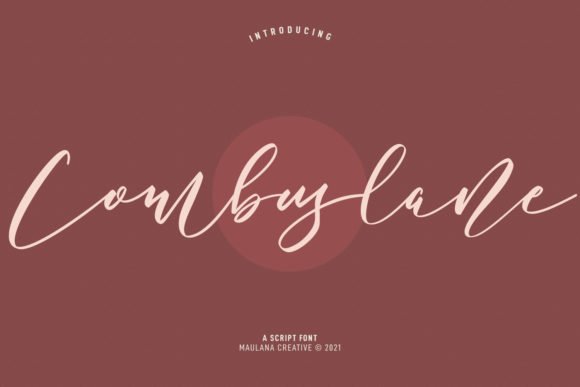
Discover the Elegance of Combuslane Script Font
Have you ever been brainstorming a new project, and suddenly, a spark of creativity hits you? You envision a beautiful, handwritten logo or a stunning title that screams luxury and sophistication. That’s exactly the moment when the right font can make all the difference.
Enter Combuslane Script Font, a masterfully designed handwritten font that exudes classy calligraphic influences while feeling refreshingly contemporary. This luxurious font is perfect for designers who want to elevate their projects to the next level. With Combuslane Script Font, you can create stunning visual elements that convey elegance and refinement. Whether you’re working on a high-end branding project or a bespoke invitation, this font is sure to become your new favorite.
As a designer, you know the importance of selecting the right font to convey your message. Combuslane Script Font is a valuable addition to your toolkit, offering a unique blend of classic and modern styles that’s sure to impress.
Combuslane Script Font Key Features
- Unique Characteristics: Includes hand-drawn, cursive script with a modern twist and a wide range of ligatures and swashes
Combuslane Script Font Review
Overall, I think Combuslane Script is a beautiful and elegant font. ✨ It’s perfect for projects that need a touch of sophistication and whimsy. I love how the letters are connected and flowing, it gives the text a sense of movement and energy.
Here are some things that work well in this font:
- ✨ Elegant and connected letterforms
- ✨ Suitable for projects that need a touch of whimsy and sophistication
- ✨ Works well for titles, headings, and short paragraphs
- ⚠️ May not be the best choice for large blocks of text, as it can be difficult to read
- ⚠️ Can be a bit too ornate for some projects, which may detract from the message
Overall, I think Combuslane Script is a great addition to any designer’s toolbox. While it has its limitations, it’s perfect for projects that need a touch of elegance and sophistication. Just be sure to use it sparingly and in the right context.
Combuslane Script Font is ideal for creating elegant and sophisticated designs. Use it for:
– Invitations and event announcements
– Branding and logo design
– Editorial and publishing projects
For the best results, use Combuslane Script Font in conjunction with other elegant fonts, such as serif or script fonts. Experiment with different font sizes, colors, and arrangements to achieve a unique and captivating design.
Alternatives to Combuslane Script Font
Great Vibes Font is a beautiful, elegant script font that is perfect for creating a warm and inviting atmosphere. It is ideal for use in wedding invitations, greeting cards, and other special occasions. Great Vibes Font is a great alternative to Combuslane Script Font as it has a similar feel and style, but with a more refined and polished look.
Carolyna Pro Font is a modern and sophisticated script font that is perfect for creating a high-end and luxurious feel. It is ideal for use in branding, advertising, and other marketing materials. Carolyna Pro Font is a great alternative to Combuslane Script Font as it has a similar level of sophistication and elegance, but with a more modern and trendy feel.
Playfair Display Font is a luxurious and elegant script font that is perfect for creating a high-end and sophisticated feel. It is ideal for use in branding, advertising, and other marketing materials. Playfair Display Font is a great alternative to Combuslane Script Font as it has a similar level of sophistication and elegance, but with a more dramatic and ornate feel.